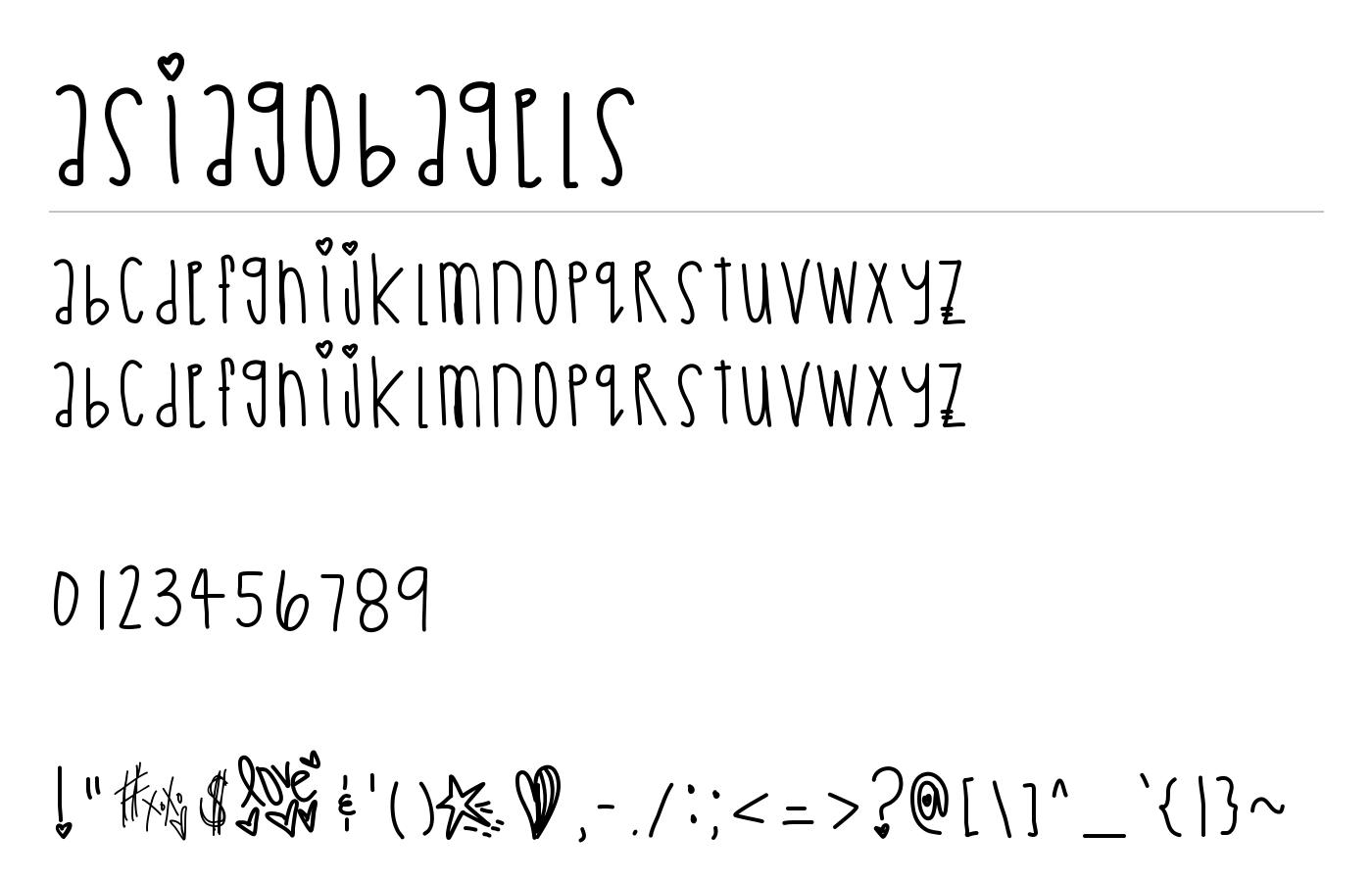
AsiagoBagels is a playful, handwritten font with a tall, narrow structure and whimsical details like heart-shaped dots and quirky letterforms. Its light, casual strokes and unique character shapes lend a fun, friendly vibe, making it perfect for creative projects, kids’ designs, or informal branding that seeks a charming and personal touch. This font shines in headlines, invitations, and any context where a joyful, approachable style is welcome.
AsiagoBagels Font
About AsiagoBagels Font